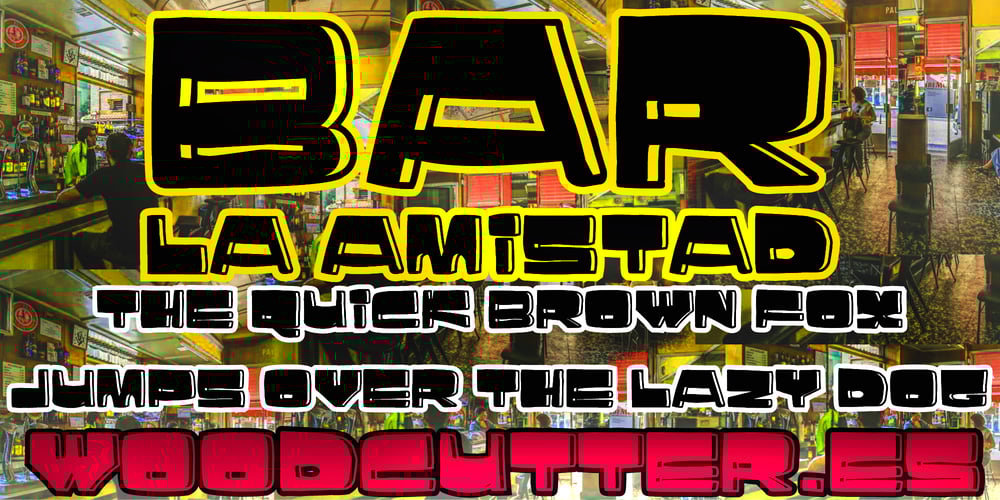
Bar La Amistad Font Family was designed by Jordi Manero and published by Woodcutter. Bar La Amistad contains 1 styles and family package options. “Bar La Amistad” is a typeface inspired by the old signs of Spanish shops. With a design that evokes nostalgia and authenticity, its letters have a classic and robust style, perfect for adding a vintage touch to any project. This font includes accents and is ideal for posters, menus, and logos that seek to reflect the tradition and warmth of the bars and shops of yesteryear. “Bar La Amistad” captures the essence of past times, bringing a sense of community and closeness to any design in which it is used.